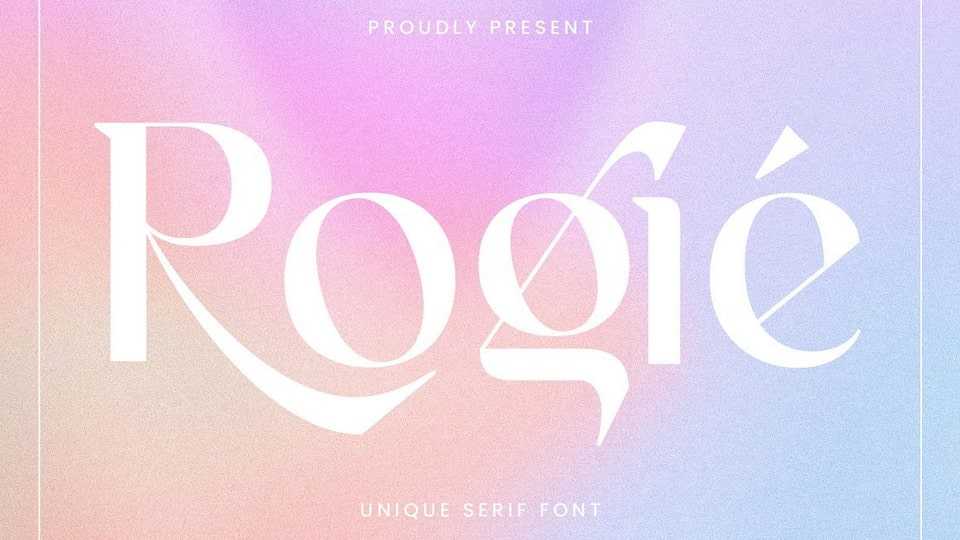
Download Rogie font, an elegant and unique display serif typeface that uses ligatures to smoothly link letters. Rogie font is perfect for adding a unique twist to word-mark logos.
Designer: Mokatype Studio